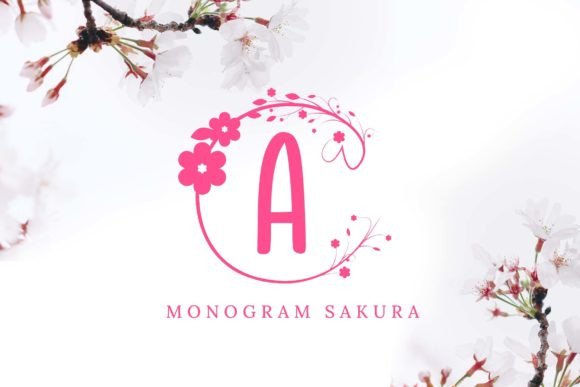
Introducing Monogram Sakura Font - a beautifully crafted decorative font with a cherry blossom ornament that will steal your heart. Created by Handles Creative, this font is perfect for anyone who wants to add an authentic touch to their designs.
Monogram Sakura Font will elevate your artwork to a new level of beauty. Its unique design and charming cherry blossom ornament will make your social media posts, stationery artwork, branding logos, crafts, and greeting cards stand out.
With Monogram Sakura Font, you don't have to settle for ordinary designs anymore. Add a touch of cuteness and sophistication to your creations and impress your audience. The font's authentic feel will evoke emotions of joy, beauty, and elegance.
The beauty of Monogram Sakura Font lies in its ability to transform any design into a work of art. Whether you are a designer, a blogger, or a small business owner, this font will help you create stunning designs that your audience will love.